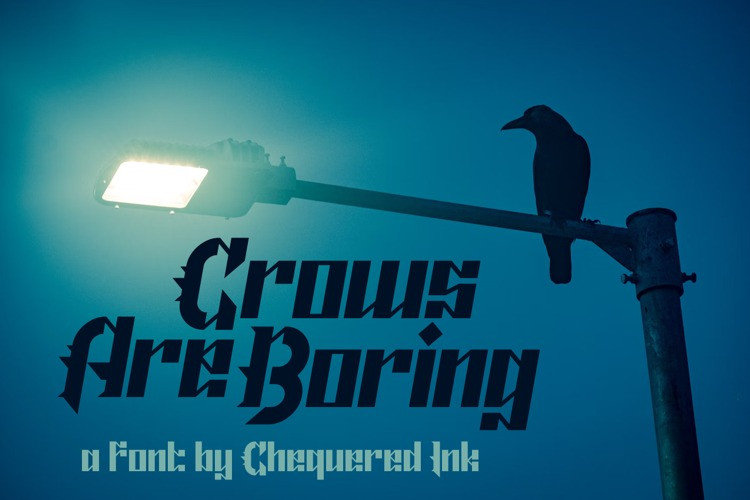
Crows Are Boring Font
Crows Are Boring Display Font, Can make it easier to convey the message in your design and create a unique impression of bold and aesthetic looks.
Classification: Display Fonts, Stencil Fonts